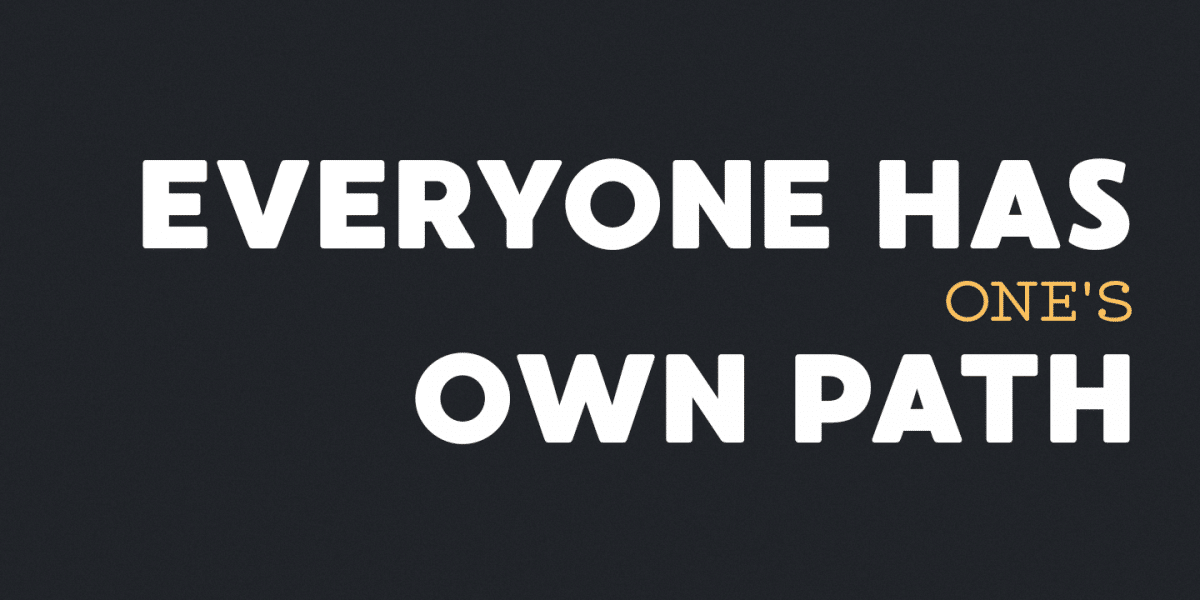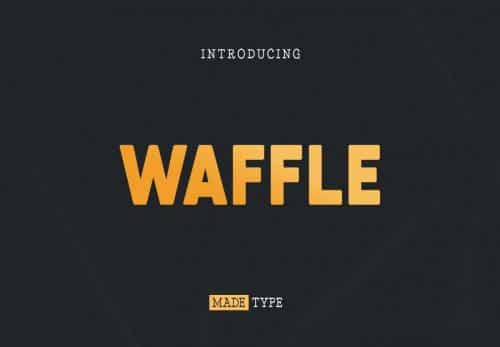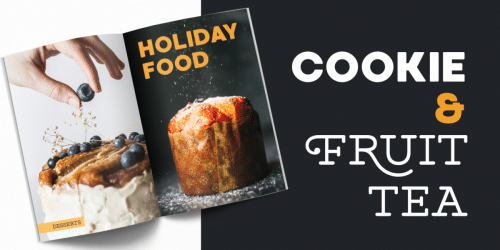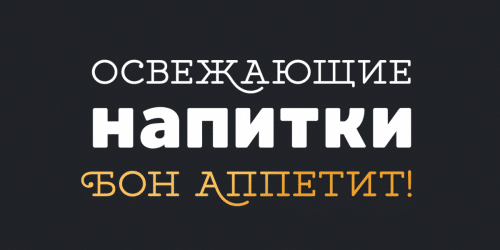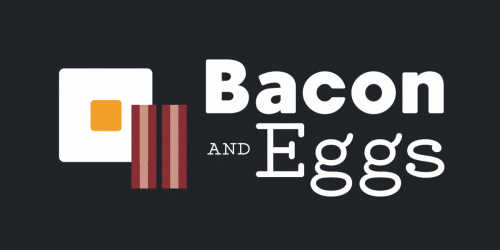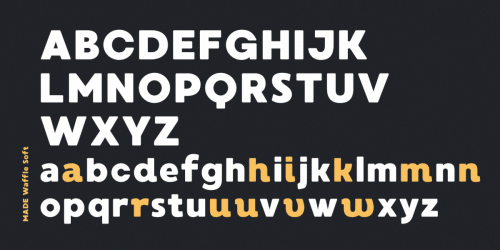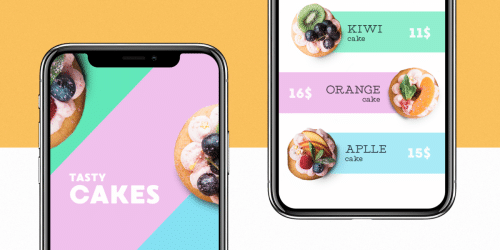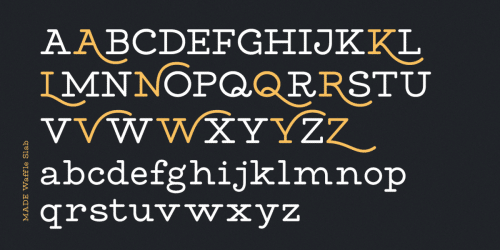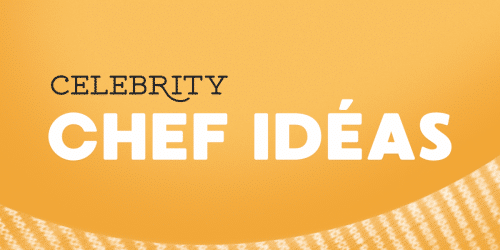
MADE Waffle – ideal for creating logos, headings. Applicable in the design of restaurants and cafes. MADE Waffle are two fonts created for combinations of your ideas.